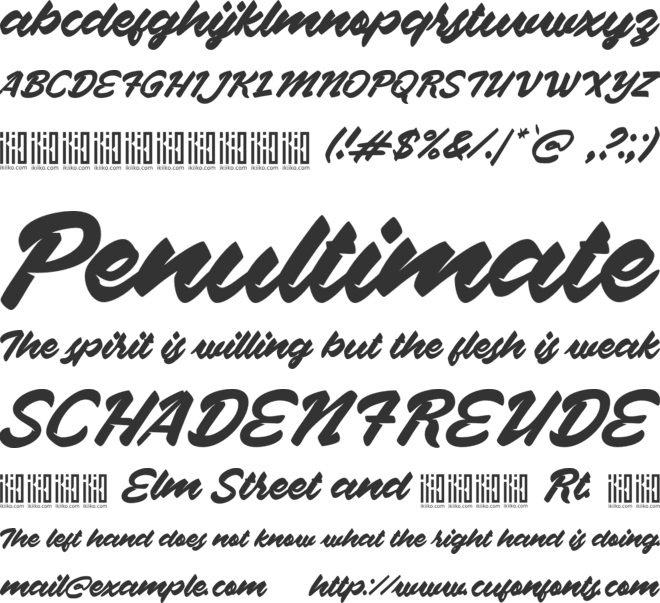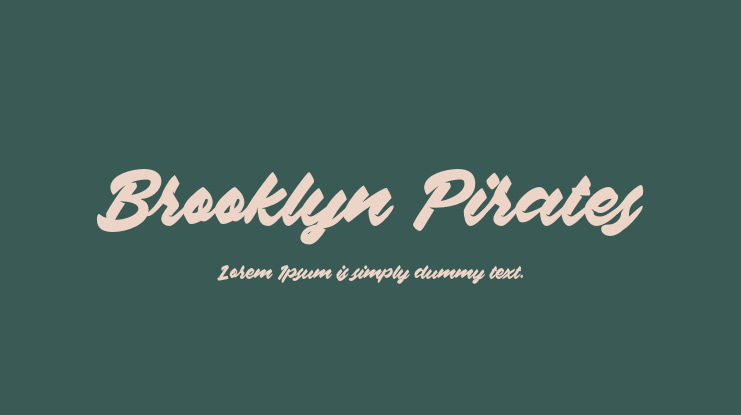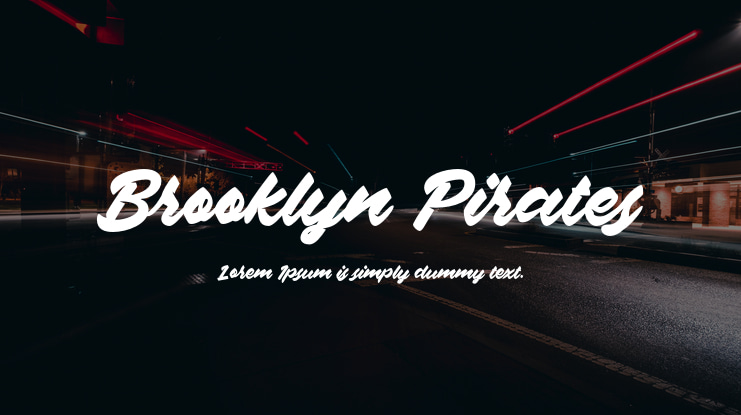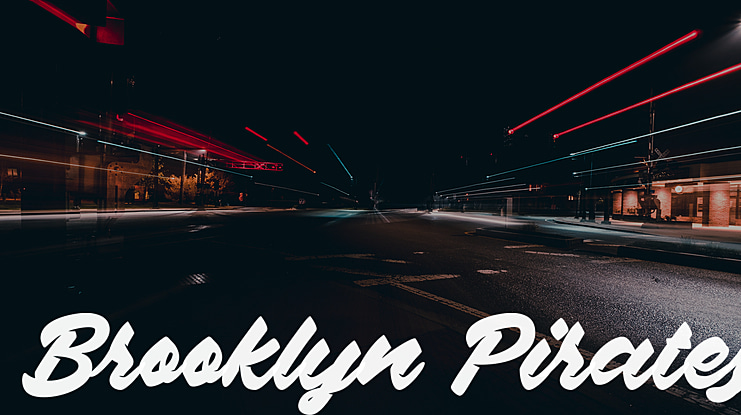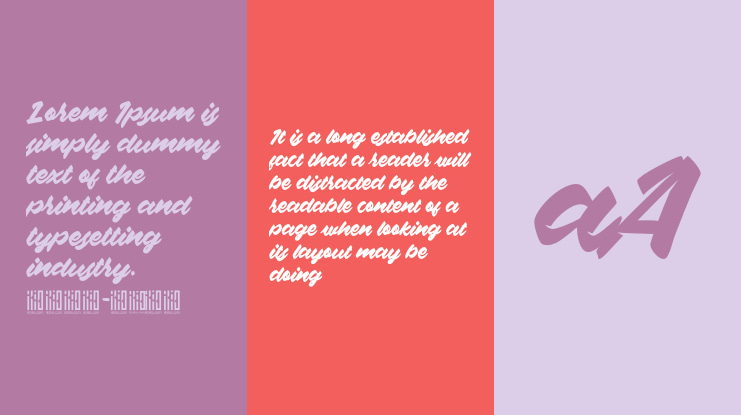
Brooklyn Pirates Font
Proudly present Brooklyn Pirates - Street Type, created by ikiiko.
A hipster typeface using handwriting in street and urban style, with a large selection of swashes that you can wear however you like. This type is very suitable for making a brand logo, poster design, magazine header, sleeve cover, flyer, quotes, or simply as a stylish text overlay to any background image.